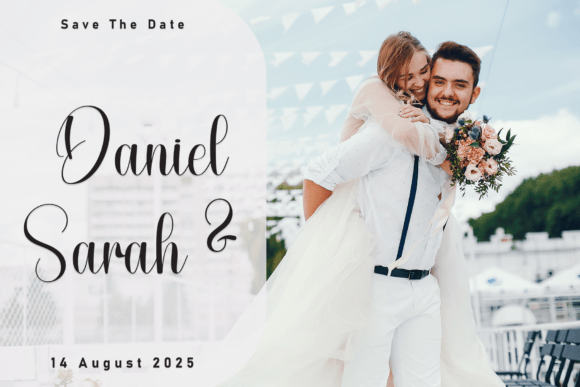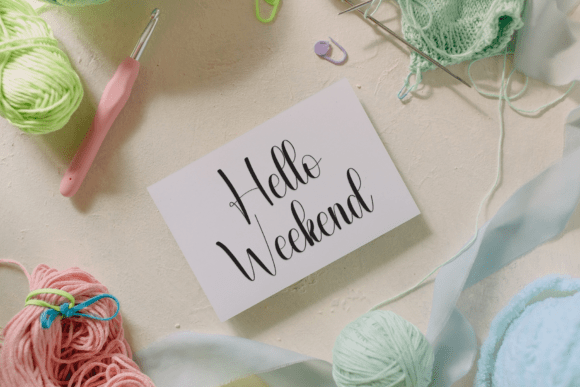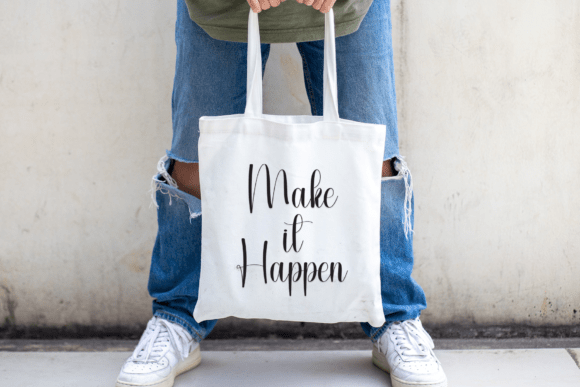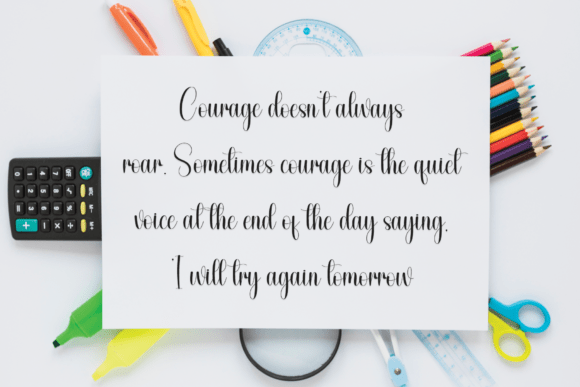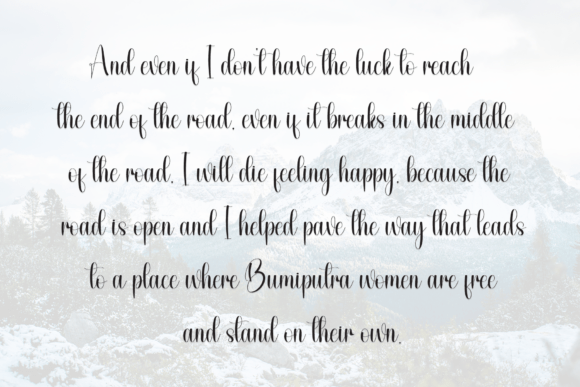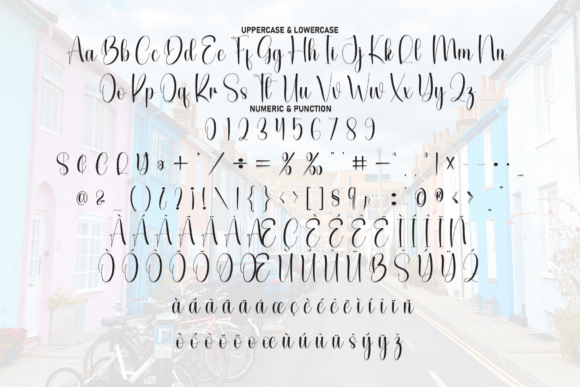
Discover the Delightful Charm of Brighton Font
Are you searching for a script font that can add a personal touch to your designs? Look no further than Brighton Font, a captivating and cheerful typeface that radiates warmth and personability through its handwritten features. This delightful font is perfect for adding a magical touch to wedding invitations, greeting cards, or any design that needs a playful splash of creativity.
The Characteristics of Brighton Font
Brighton Font is a script font that boasts a unique and charming personality. Its handwritten features give it a warm and inviting feel, making it perfect for designs that require a personal touch. The font’s strokes are fluid and dynamic, with varying thicknesses that add to its playful and cheerful nature. Whether you’re designing a wedding invitation or a greeting card, Brighton Font is sure to inject a spirited fun into your creation.
Uses of Brighton Font
Brighton Font is a versatile typeface that can be used in a variety of design projects. Here are some of the most popular uses of this delightful font:
- Wedding Invitations: Add a touch of elegance and whimsy to your wedding invitations with Brighton Font. Its handwritten features make it perfect for formal and informal wedding designs.
- Greeting Cards: Create personalized and cheerful greeting cards for any occasion with Brighton Font. Its playful nature makes it ideal for birthday cards, thank-you cards, and more.
- Party Invitations: Make your party invitations stand out with Brighton Font. Its bright and cheerful personality is sure to get your guests excited for the celebration.
- Branding and Packaging: Use Brighton Font to add a personal touch to your brand’s packaging and marketing materials. Its unique personality is sure to make your brand stand out.
Benefits of Using Brighton Font
Brighton Font offers a range of benefits for designers and crafters. Here are some of the most significant advantages of using this delightful font:
- Unique Personality: Brighton Font has a unique and charming personality that sets it apart from other script fonts.
- Easy to Read: Despite its playful nature, Brighton Font is easy to read and understand, making it perfect for designs that require a clear message.
- Versatile: Brighton Font can be used in a variety of design projects, from wedding invitations to branding and packaging.
- Time-Saving: With Brighton Font, you can create stunning designs in no time. Its pre-designed letters and characters save you time and effort.
Tips for Using Brighton Font
To get the most out of Brighton Font, here are some tips to keep in mind:
- Pair it with Other Fonts: Combine Brighton Font with other fonts to create a unique and visually appealing design.
- Experiment with Colors: Try out different colors and color combinations to find the perfect match for your design.
- Pay Attention to Spacing: Make sure to adjust the spacing between letters and words to create a clear and easy-to-read design.
- Be Creative: Don’t be afraid to experiment and try out new things with Brighton Font. Its playful nature makes it perfect for creative and innovative designs.
Brighton Font is a captivating and cheerful script font that is perfect for adding a magical touch to your designs. Its handwritten features, playful nature, and versatility make it a great choice for designers and crafters. Whether you’re designing a wedding invitation, greeting card, or branding materials, Brighton Font is sure to inject a spirited fun into your creation. So why wait? Discover the delightful charm of Brighton Font today and take your designs to the next level!